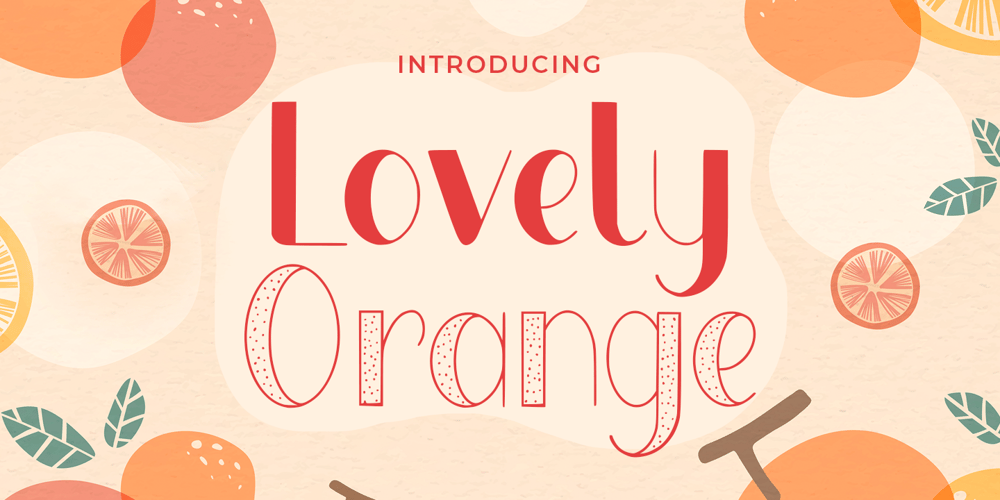
Lovely Orange
Lovely Orange font
Lovely Orange Font Family was designed by Abdul Malik Wisnu and published by Almarkha Type. Lovely Orange contains 2 styles and family package options. Lovely Orange – Fun Display Playful Sans full of charm . It will take any DIY-project to the next level!Lovely Orange is perfect for Craft , product packaging, product designs, label, branding projects, logo, wedding designs, social media posts, advertisements, watermark, invitation, stationery and any projects